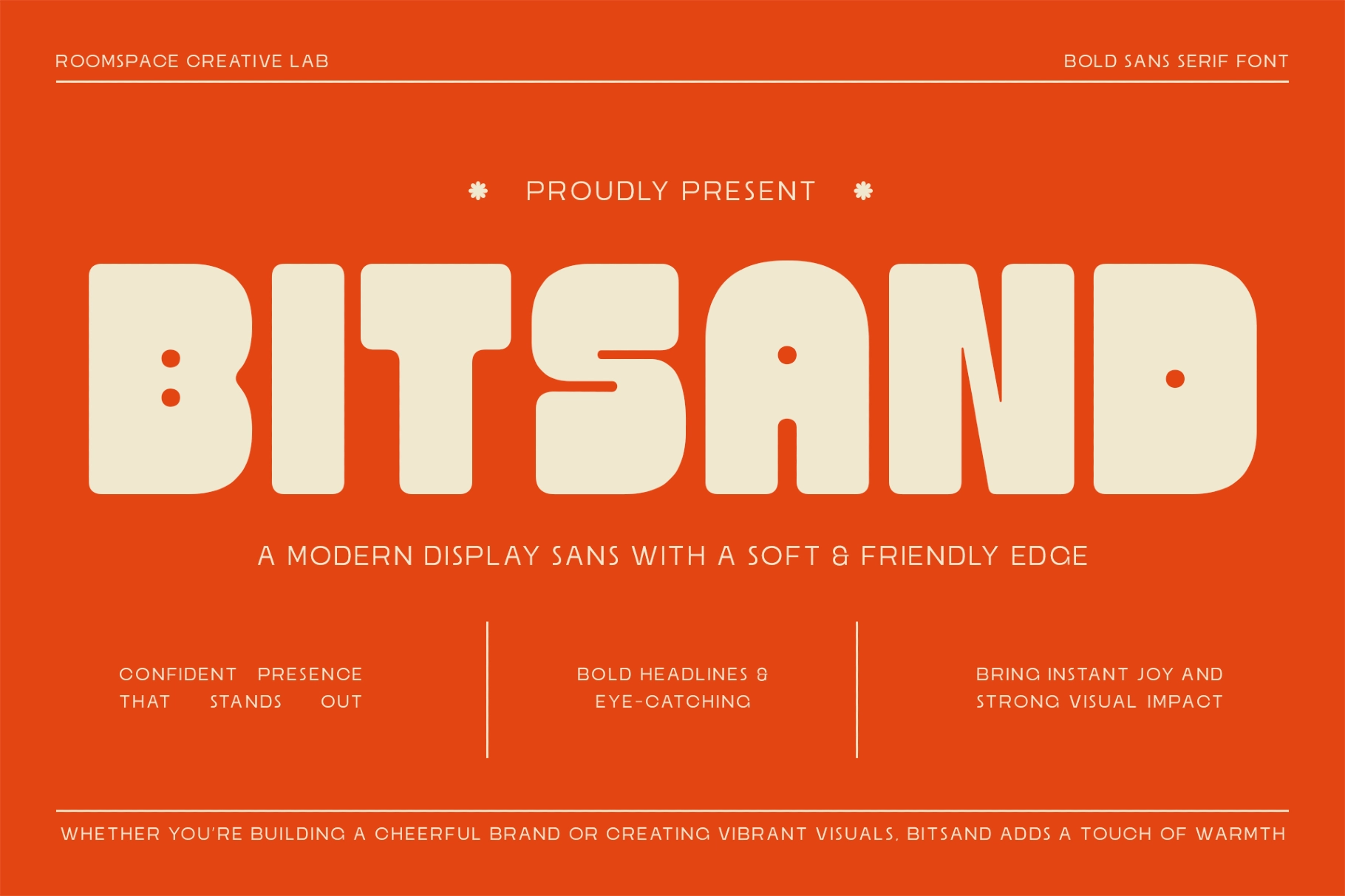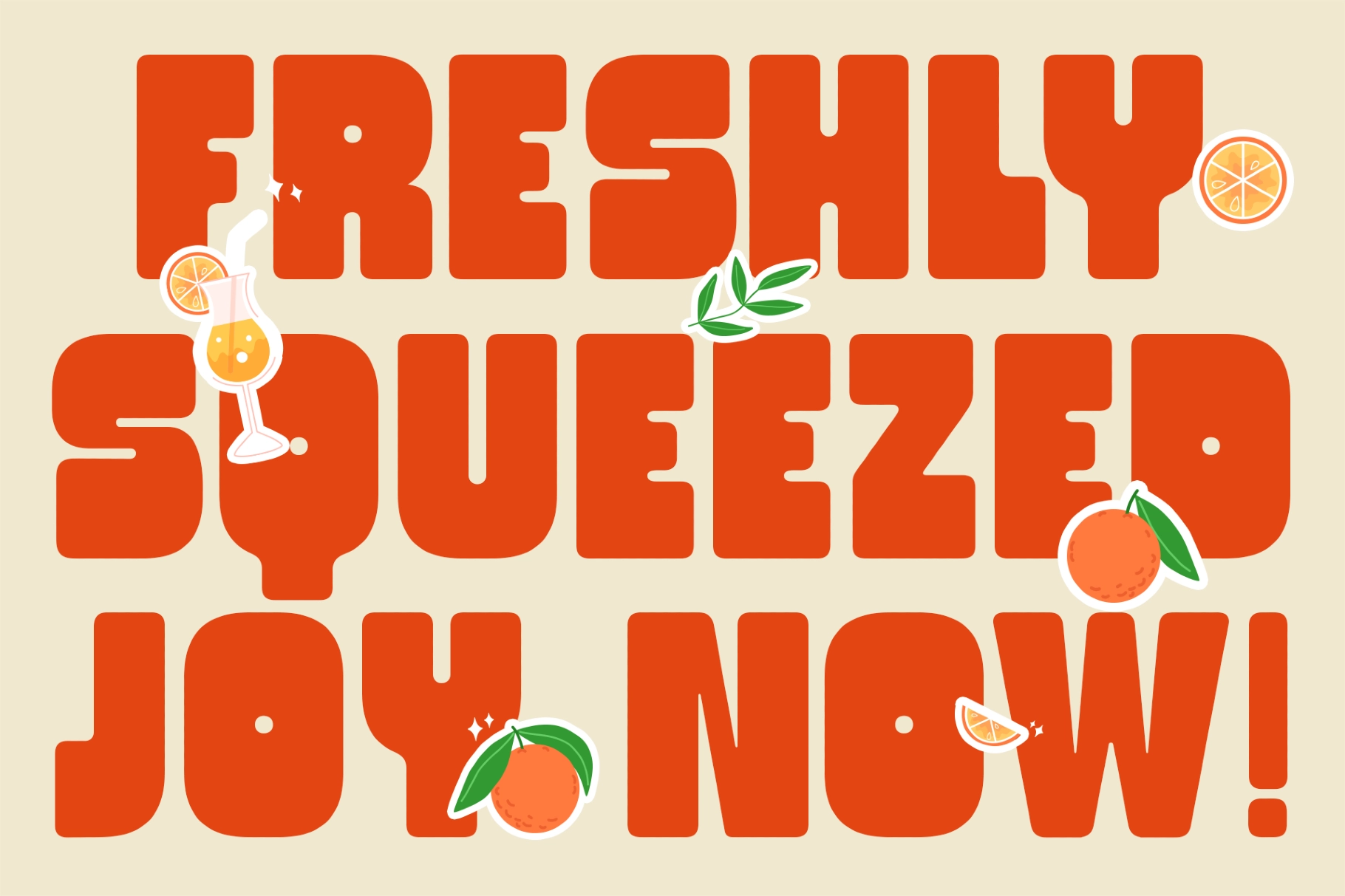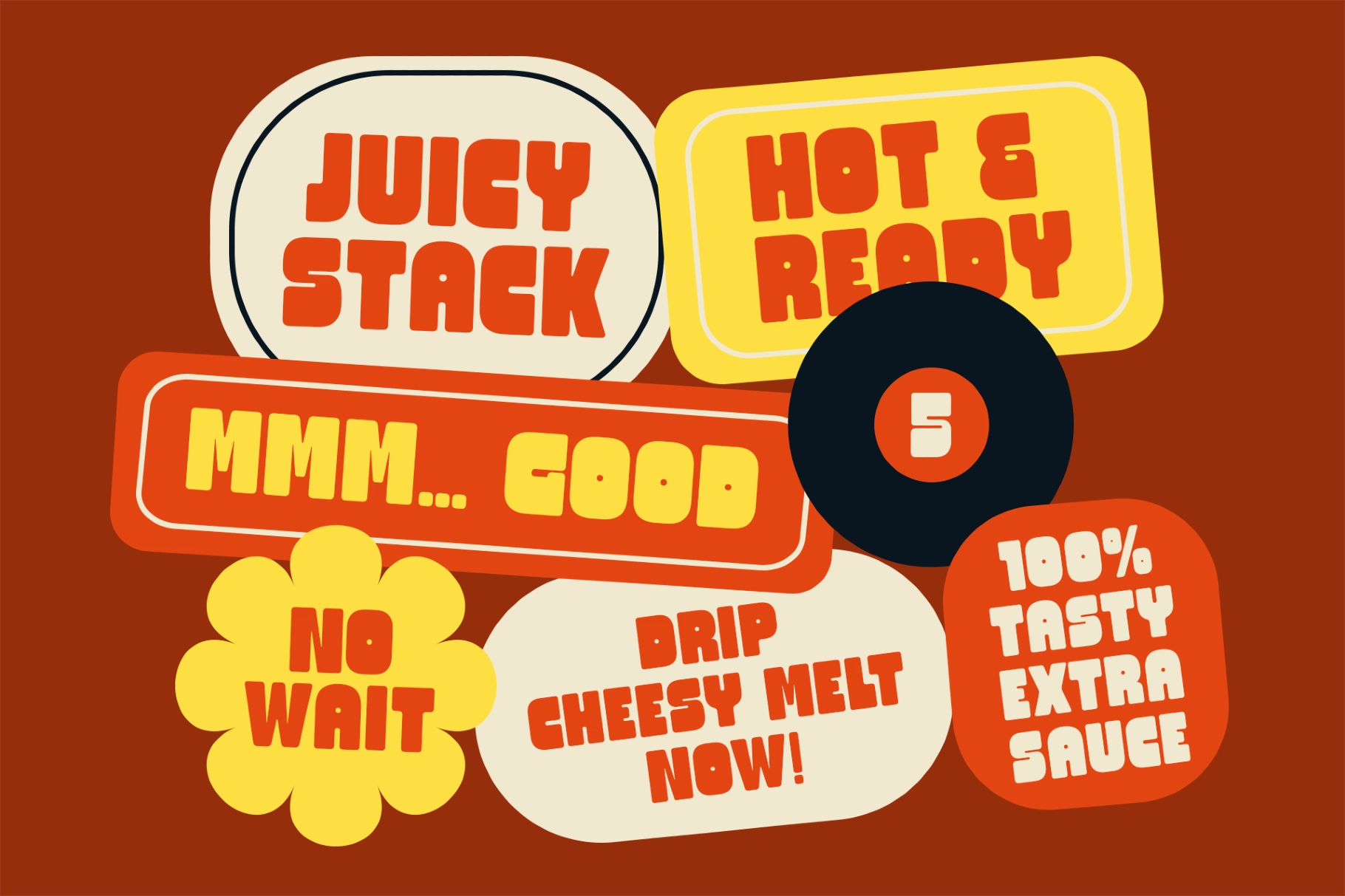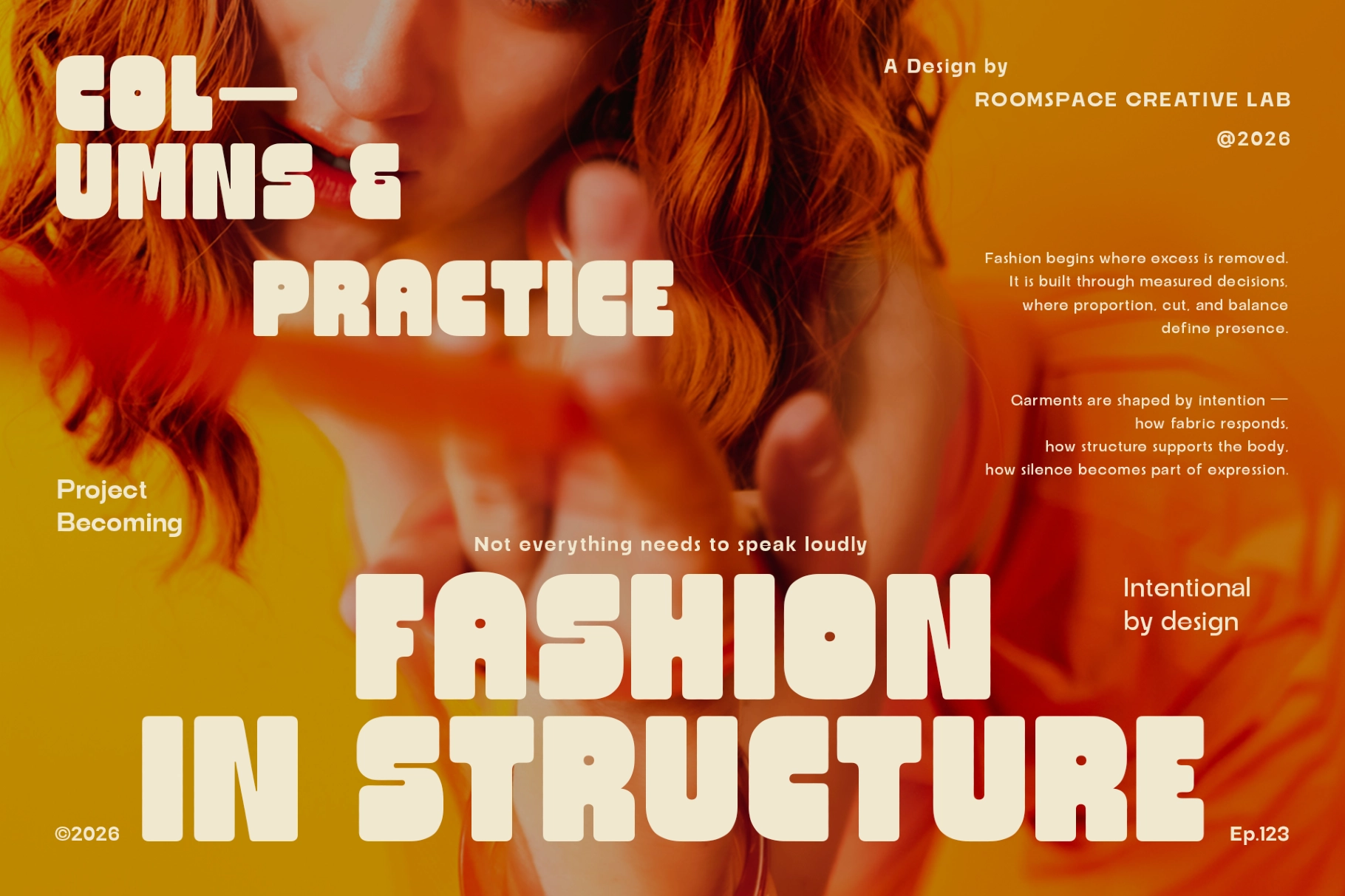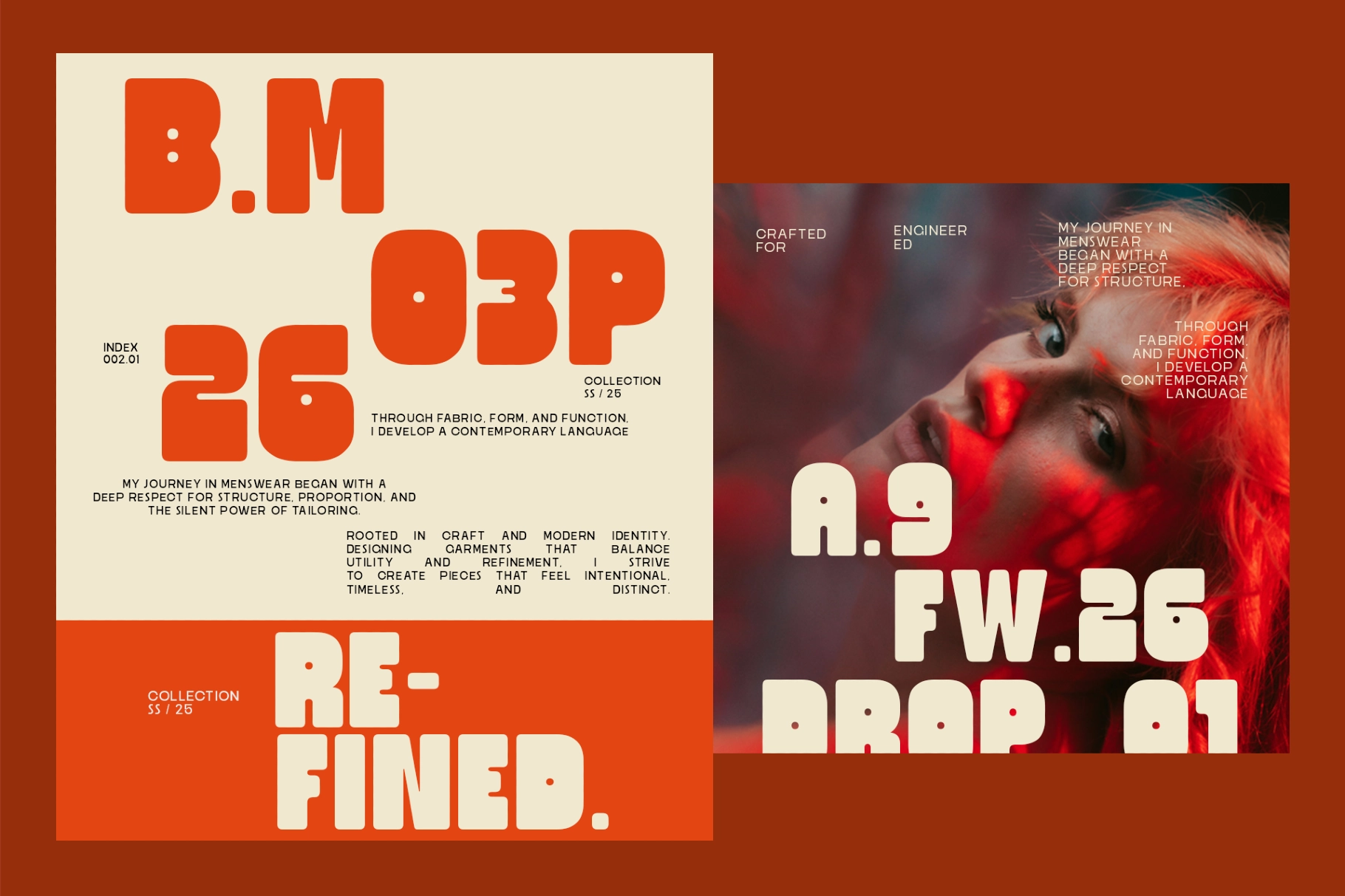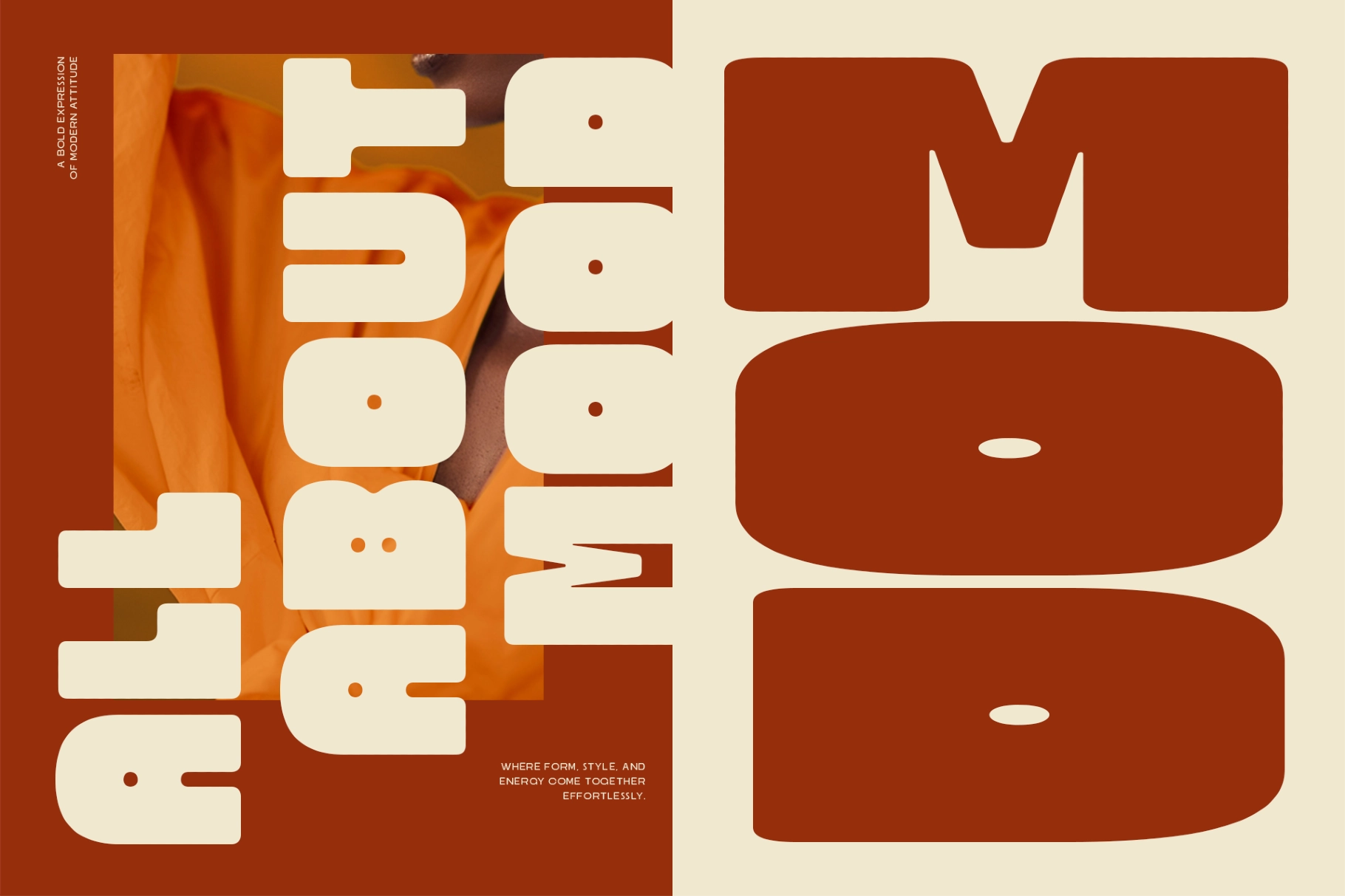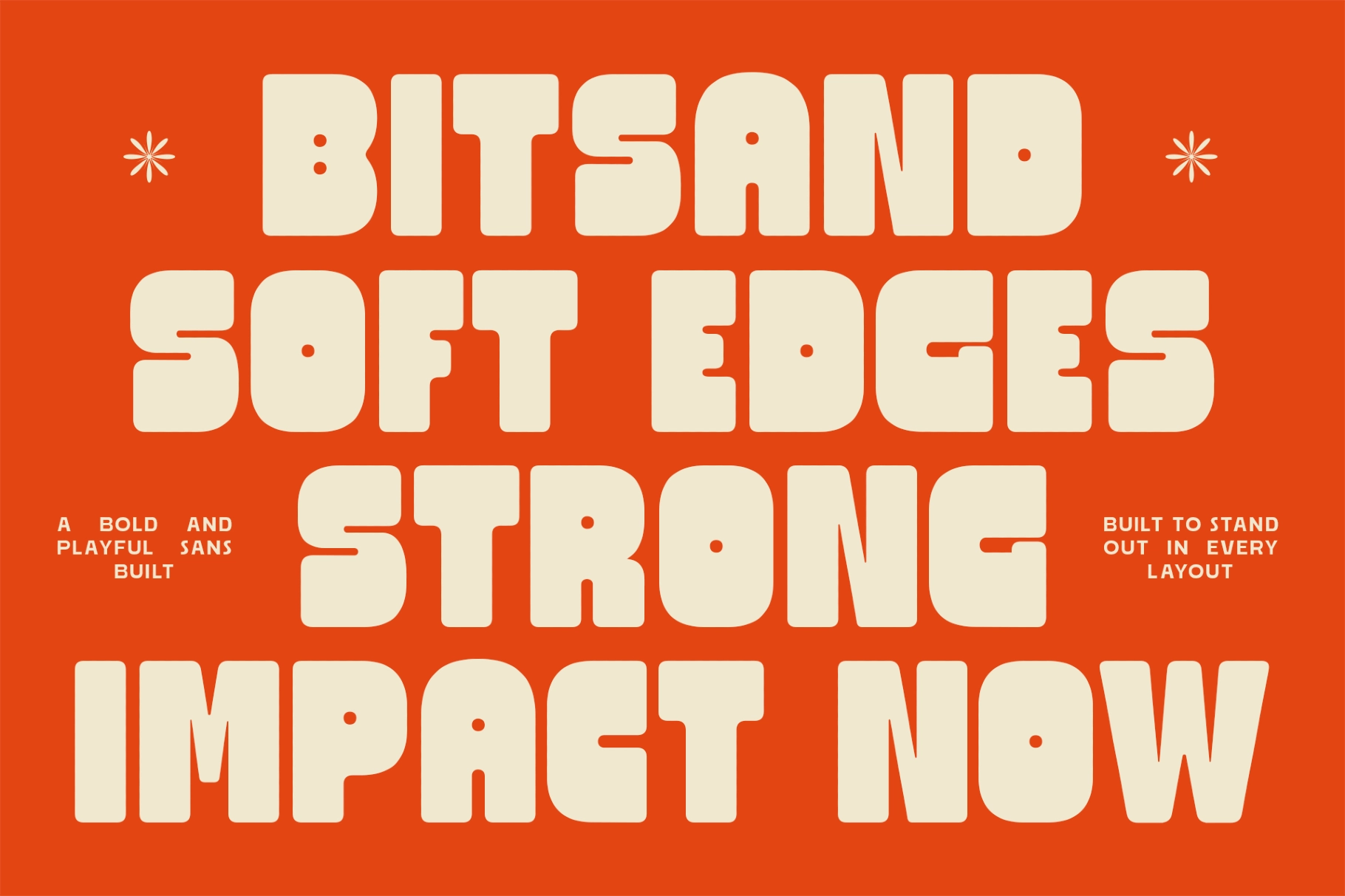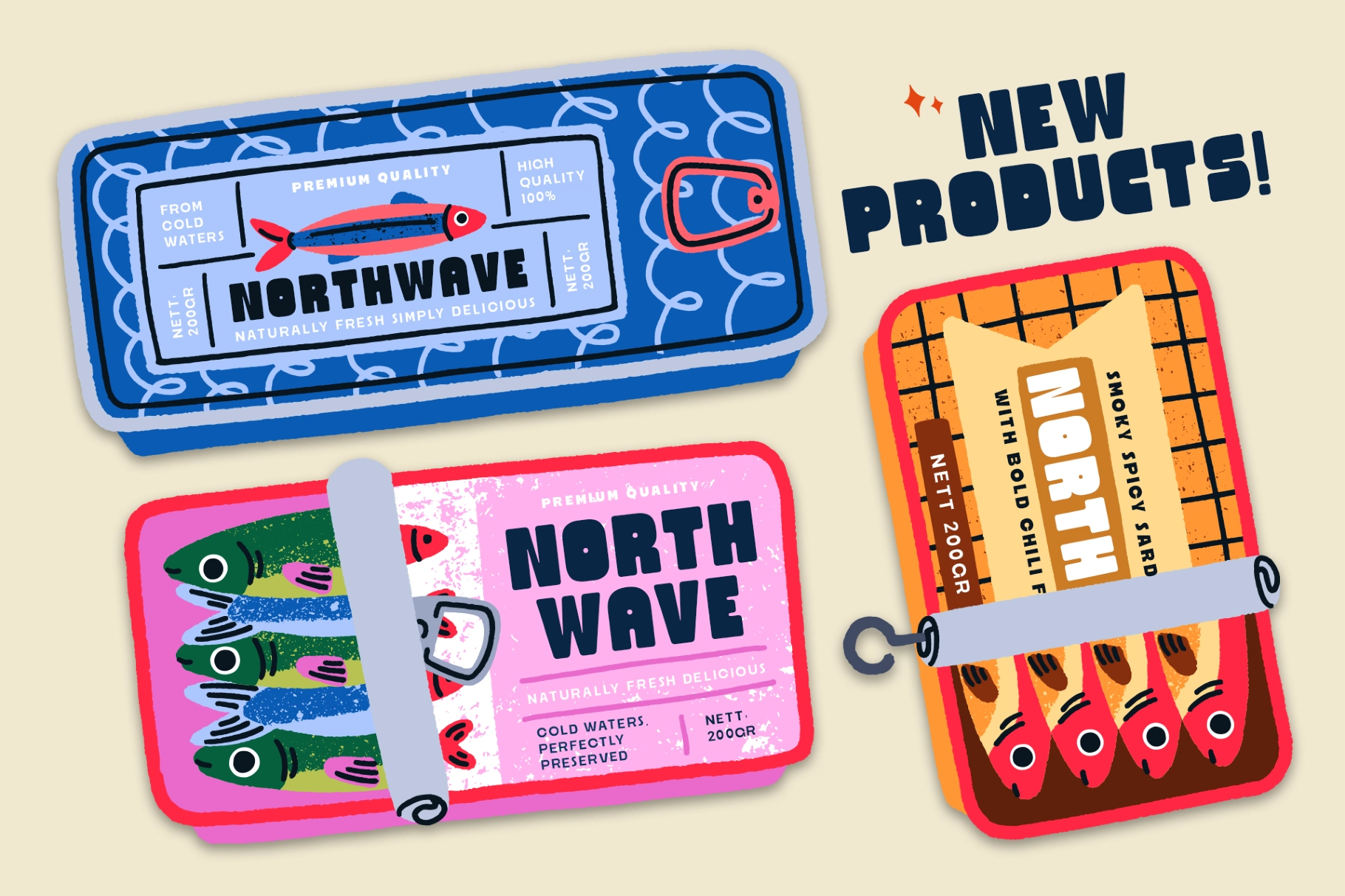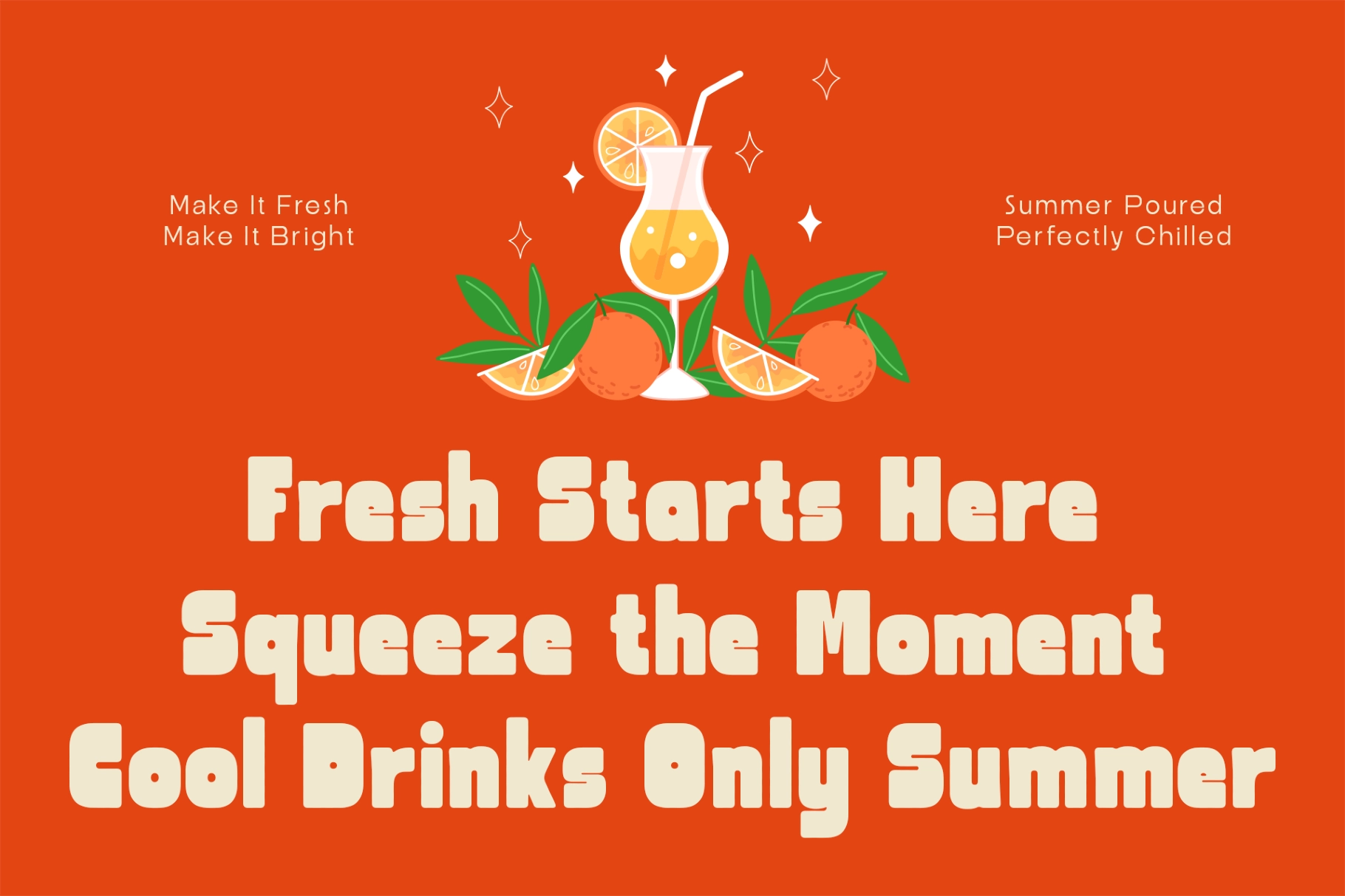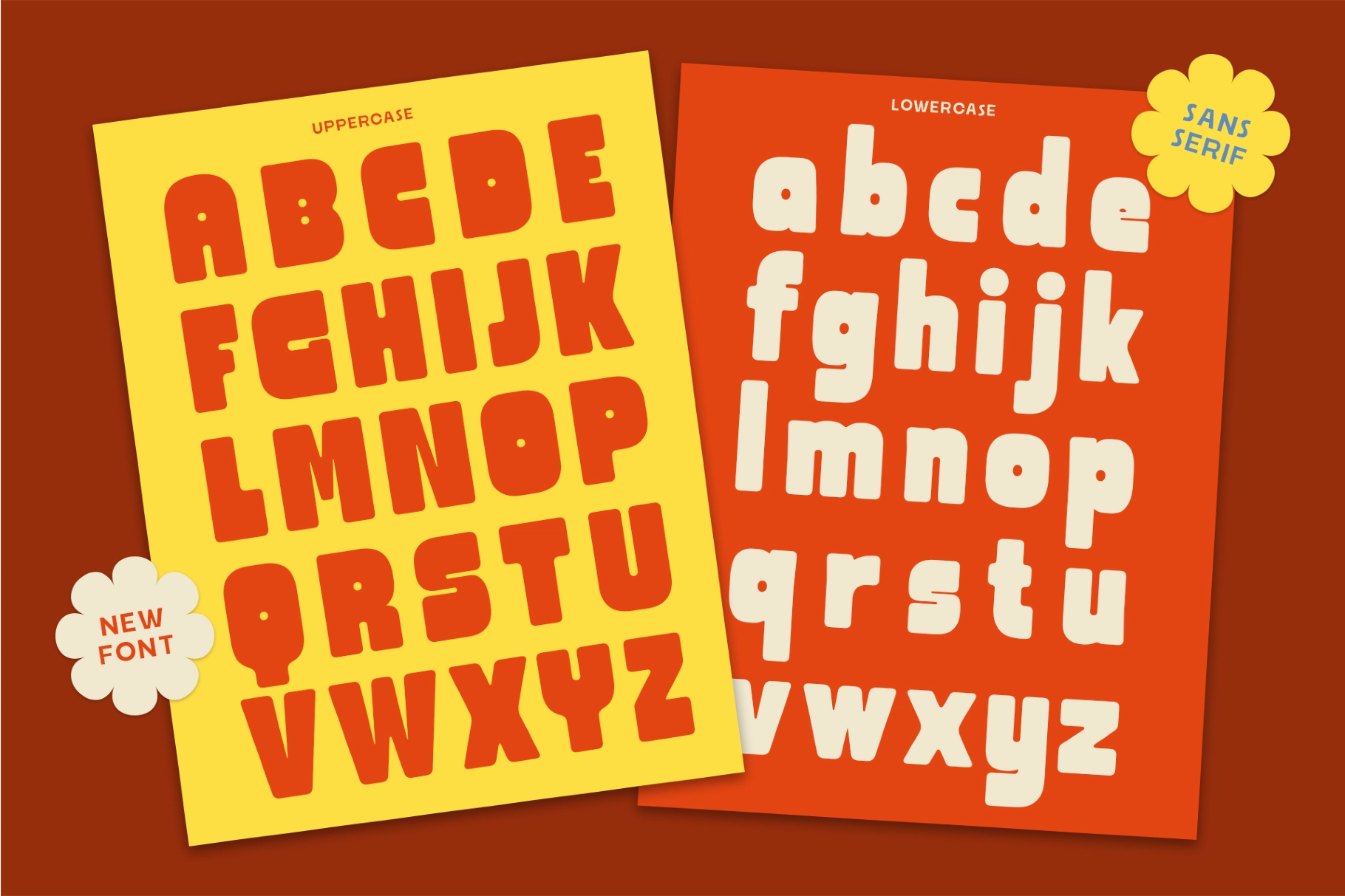
Bitsand – Rounded Playful Display Sans Font
This playful display font brings chunky rounded shapes, soft edges, and bold letterforms made for cheerful visual identity work. The sans serif structure is clean and sturdy, while the friendly proportions give headlines a bright, approachable voice with plenty of personality.
Bitsand works for logo design, kids’ branding, juice packaging, snack labels, cafe menus, social media posts, posters, advertising graphics, sticker designs, merch prints, event flyers, product launches, web banners, and bold headline layouts. The Regular style is full and punchy for main titles, while the Outline style adds a lighter graphic option for badges, labels, secondary text, and layered typography.